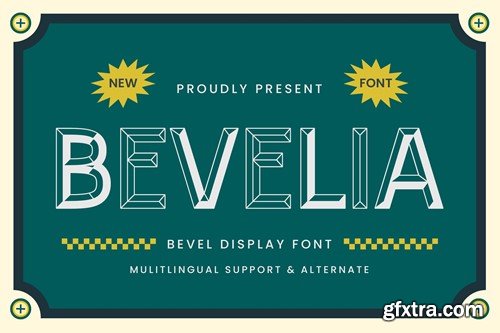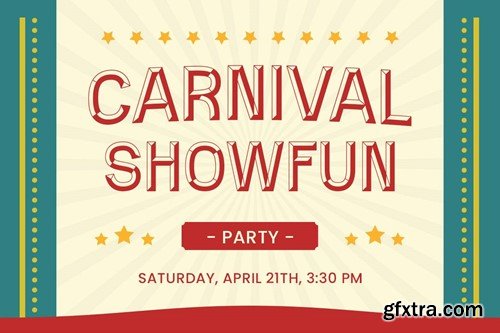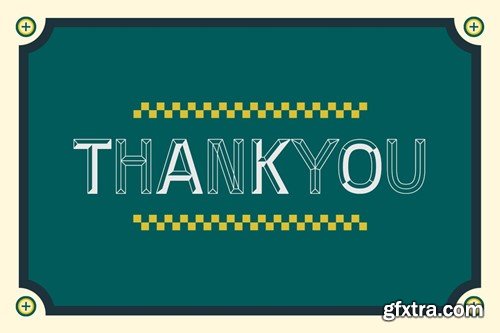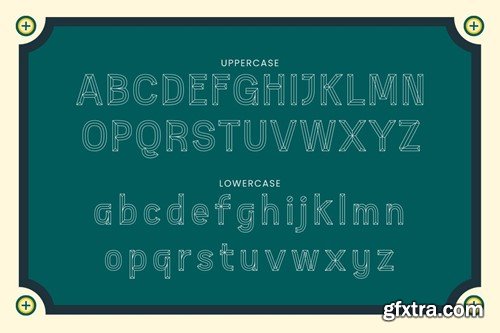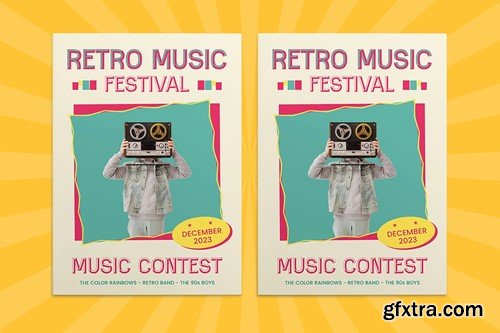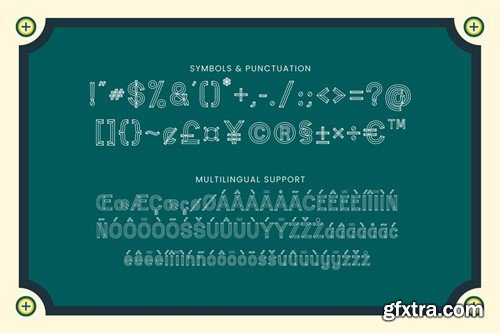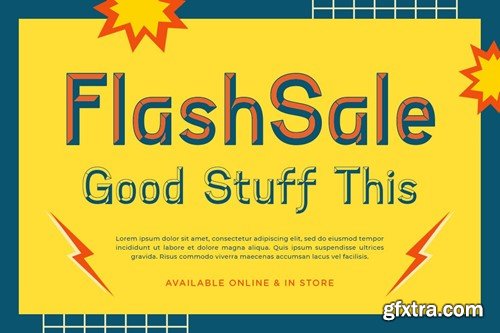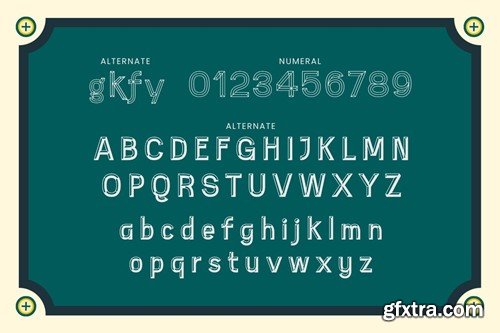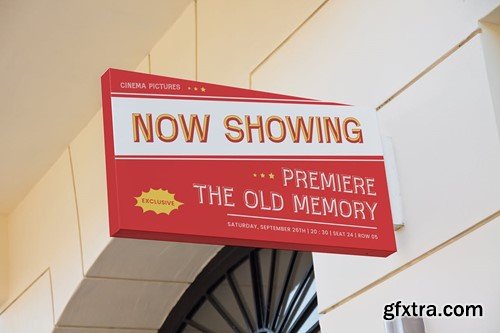
贝莉维亚 - 贝维尔显示字体 KPD5HDY
Introducing "Bevelia" - a bevel display font that adds dimension and depth to your designs, creating a bold and impactful visual statement. With its sharp and intricate beveled letterforms, "Bevelia" brings a modern edge to any project. Each character is meticulously designed to enhance your designs with a sense of depth, making it ideal for attention-grabbing headlines, logo designs, signage, and more. Embrace the three-dimensional appeal of "Bevelia" as it effortlessly elevates your designs. Whether you're creating bold branding, impactful posters, dynamic headlines, or unique social media graphics, this font will captivate your audience with its beveled and contemporary style. Step into the world of dimensional typography with "Bevelia" and let your designs pop with boldness and sophistication. Features: – Uppercase – Lowercase – Symbols & Punctuation – Numeral – Ligature – Alternate – Multilingual Support File Included: – Bevelia ( OTF, TTF, WOFF, WOFF2 )